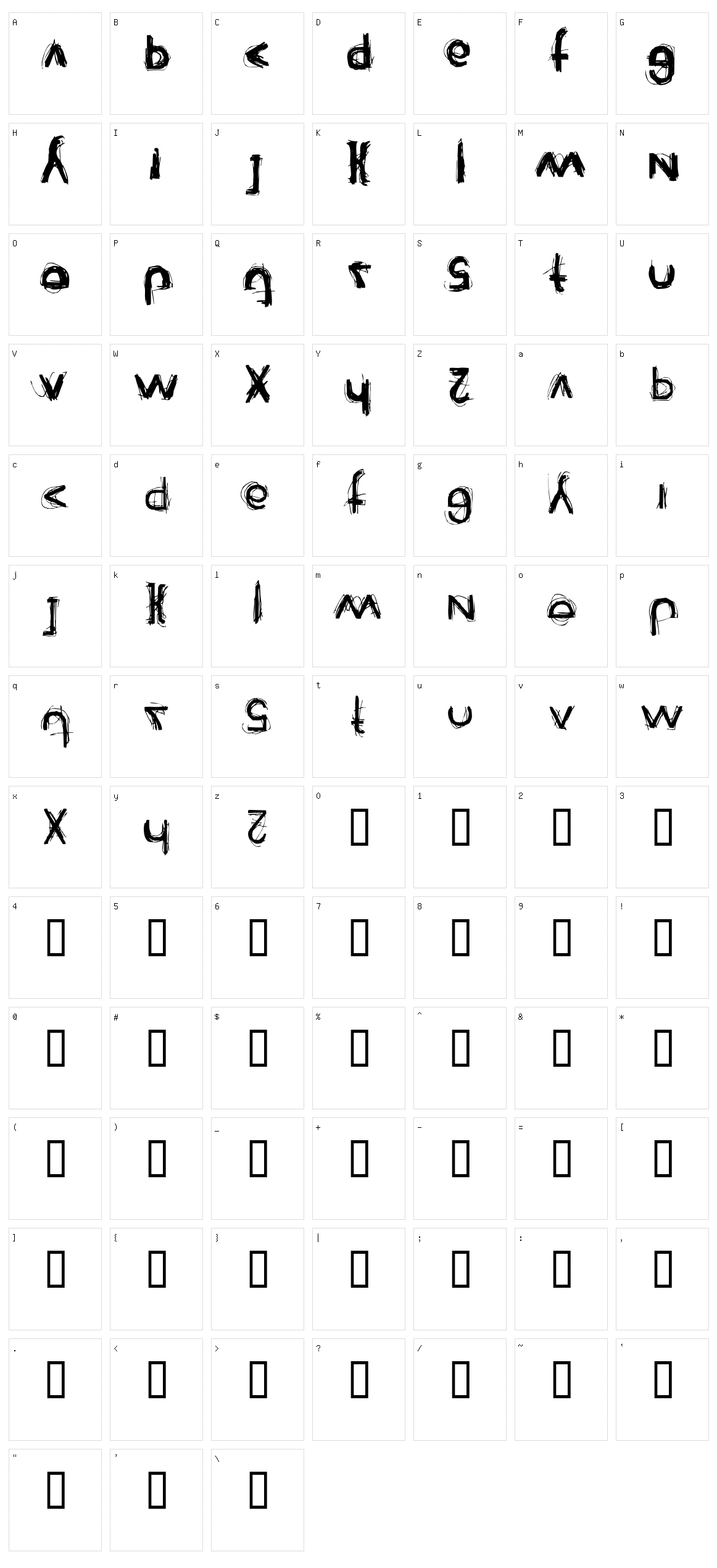
The free font Reienhardt is carefully designed by MatreroG, showcasing a thoughtful balance of creativity and usability and falls under the Trash font style. When you download the ZIP file, it contains only 31.56 KB of font files, making it lightweight and quick to download. Please review the license details below to understand permitted usage and distribution rights. If license information is not available, we recommend using this font for personal projects only or contacting the author directly for commercial usage permissions.
"Reienhardt" es una fuente gratuita diseñada por
Hombre Ñandu para MatreroG disenio.